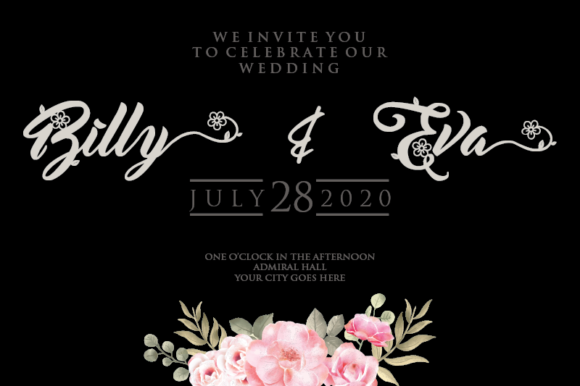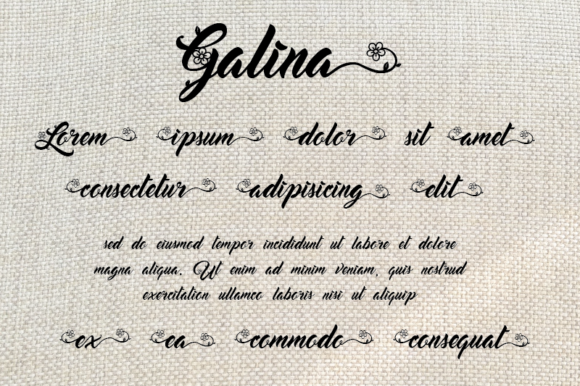
Galina Font
db-ku.com - Script & Handwritten -- Galina is an incredibly elegant and distinct handwritten font, featuring flower ornaments. This font is PUA encoded which means you can access all of the glyphs and swashes with ease! It features a varying baseline, smooth lines, gorgeous glyphs and stunning alternates. Fall in love with its incredibly versatile style and use it to create gorgeous wedding invitations, beautiful stationary art, eye-catching social media posts, and much more!